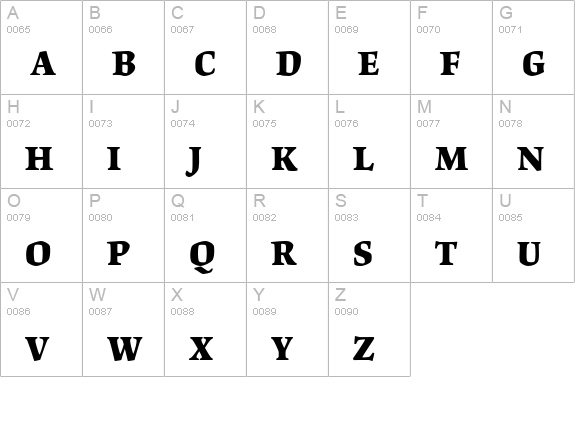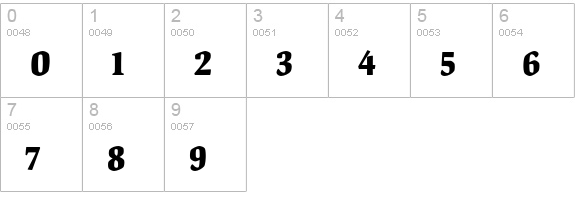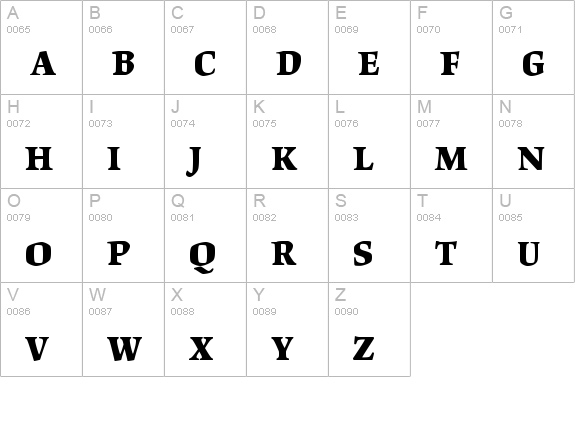
Origami Std Bold is a strong, high-contrast variant in the Origami typeface family \xE2\x80\x94 well suited to headlines, attention-grabbing titles, and strong calls-to-action.
Origami Std Bold font is a sleek and modern typeface that exudes confidence and style. With its bold and distinctive design, this font is perfect for creating eye-catching titles, headlines, and logos. The sharp lines and clean curves of Origami Std Bold add a touch of sophistication to any project. What sets Origami Std Bold font apart is that it is available for free download at FontsMarket.com. This means that you can easily access this high-quality font without any cost, making it a valuable addition to your font collection. Whether you're designing a website, creating marketing materials, or crafting personal projects, Origami Std Bold font is sure to make a statement with its bold and impactful appearance. Download it today and elevate your designs with this stunning typeface.